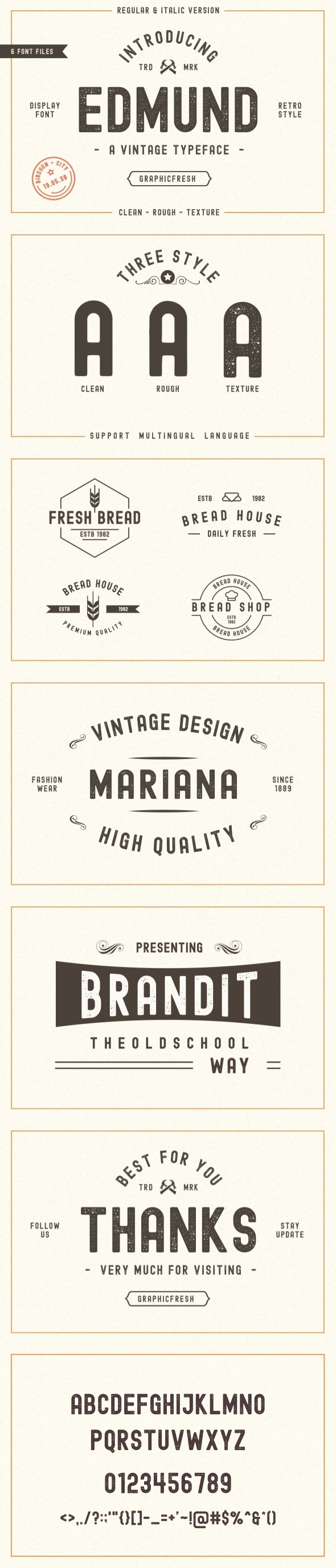
Edmund is a vintage display family including Textured, Rough & Clean versions as well as Italic versions of each. it’s perfect for logos, name card, magazine layouts, invitations, headers, or even large-scale artwork. Edmund includes 6 OTF & TTF files within the Zip folder.
Features
- Uppercase - Lowercase - Punctuation and Number - Multilingual Language